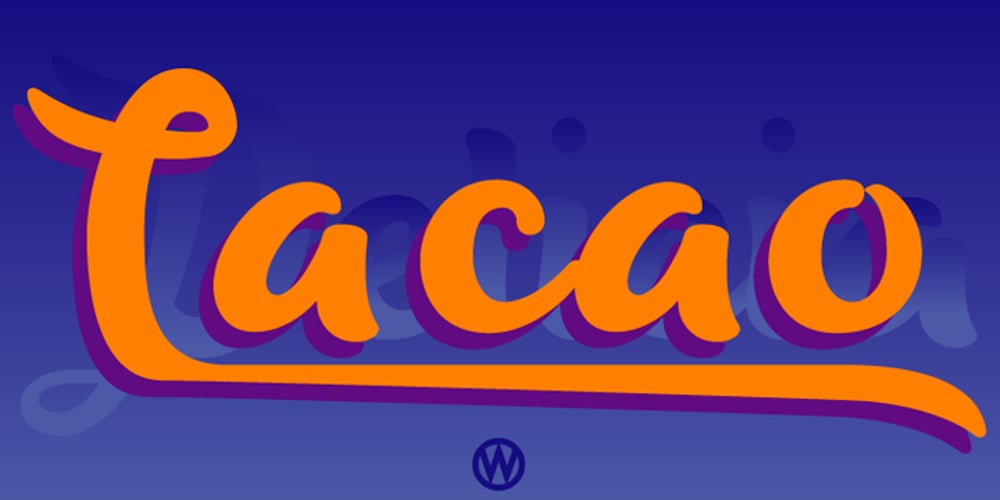
Delicia Pro
Delicia Pro font
Delicia Pro Font Family was designed by Gert Wiescher and published by Wiescher Design. Delicia Pro contains 1 styles and family package options. Delicia Pro Script is a versatile fat script designed with delicatessen shops in mind, it has lots of variations. There are for example seven different versions for the uppercase letters that can be accessed with opentype savy software. different ampersands, @-signs, Th combinations, lots of different lowercase letters and so on. The font can be used in all of Europe, Turkey and the Baltic countries (sorry no Greek and Cyrillic). Yours very versatile Gert Wiescher